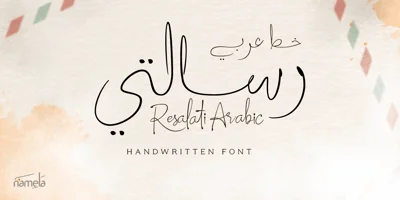
Resalaty Arabic Font
Resalaty Arabic Font is ideal for Islamic cultural centers, Arabic calligraphy studios, Middle Eastern publishing houses, religious educational materials, mosque signage, Arabic literature publications, and multicultural communication platforms. This elegant typeface brings authentic Arabic typography and cultural heritage to any design project celebrating Islamic art and Middle Eastern linguistic traditions.
What makes Resalaty Arabic Font exciting is its masterful combination of traditional Arabic calligraphy principles and contemporary design functionality that honors centuries of Islamic artistic heritage. The font features beautifully proportioned Arabic letterforms with classical curves and flowing connections that reflect the spiritual and artistic traditions of Arabic script. Its authentic character maintains cultural integrity while providing excellent readability for both religious texts and modern Arabic communication needs.
The Resalaty Arabic Font family includes multiple weights with traditional variations and Islamic ornamental elements. The character set features authentic Arabic ligatures, religious symbols, calligraphic alternates, and cultural decorative accents that enhance the font's traditional appeal. Advanced OpenType features support complex Arabic text shaping, contextual letter forms, and proper diacritical mark positioning for professional Arabic typography applications.
Whether you're designing Islamic educational materials, creating Arabic publishing projects, or developing multicultural brand identities, Resalaty Arabic Font provides exceptional authenticity and versatility. This distinguished typeface transforms ordinary Arabic text into beautiful cultural expressions that honor Islamic traditions while establishing respected recognition in competitive Arabic publishing and multicultural communication marketplaces.